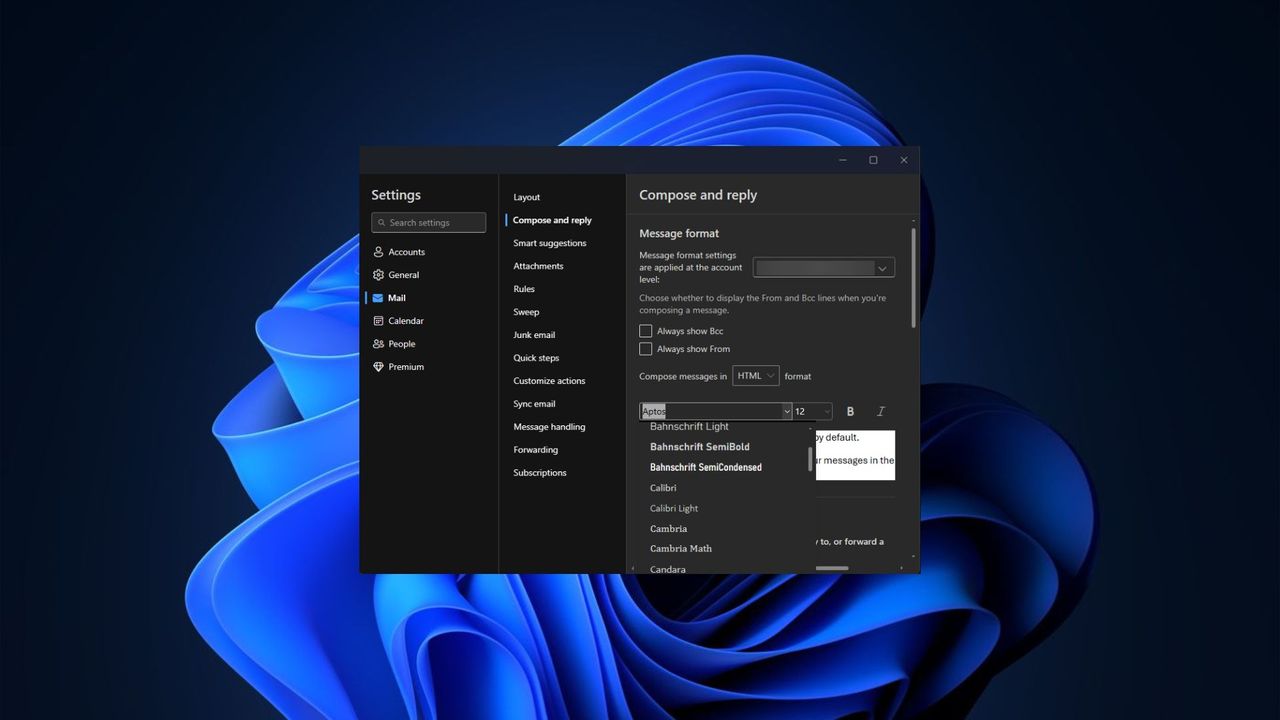
Microsoft's new default font for Office apps turns into an overnight TikTok sensation for all the wrong reasons — Here's how to switch back to Calibri
Aptos, the new default font for Office apps might not be a welcome change for users.
- Microsoft's new default font for Office apps, Aptos, is rolling out to more users.
- Multiple users have taken to social media platforms to express how much they dislike the change.
- Luckily, you can switch back to Calibri if you don't like the new font, though the old Office theme has been renamed to Office Theme 2013 – 2022.
- Some users have even made tutorials on TikTok showcasing how to switch back to Calibri as the default font on Office apps.
After what might have seemed like an eternity (15 years to be precise), Microsoft finally decided to change the default font for its Office apps from Calibri to Aptos (Bierstadt). The company made this announcement last year in July, and the change has been rolling out to users in waves.
The new default font for Office apps has seemingly shipped to more users, which has been received with a cocktail of mixed feelings. Several users have turned to social media platforms to express their feelings regarding the font change. It has also turned into an overnight sensation, and is currently trending on TikTok.
Users have shared videos highlighting their shock over the change, which could be an indication that not everyone was aware of Microsoft's plans to make this change. Some users have even created turorials showcasing steps to follow for those who'd like to revert to Calbri.
That said, Aptos will now be the default font across Office apps, including Word, Outlook, PowerPoint, and Excel. The new Office theme also spots a refreshed color palette, style, and line weights. Aptos also includes variants such as narrow, serif, and monospace.
Users can still revert to the old Office theme, though it has been renamed to Office Theme 2013 – 2022. It's also worth noting that the change of the default font won't affect existing documents, just the new documents that you create after the change has rolled out.